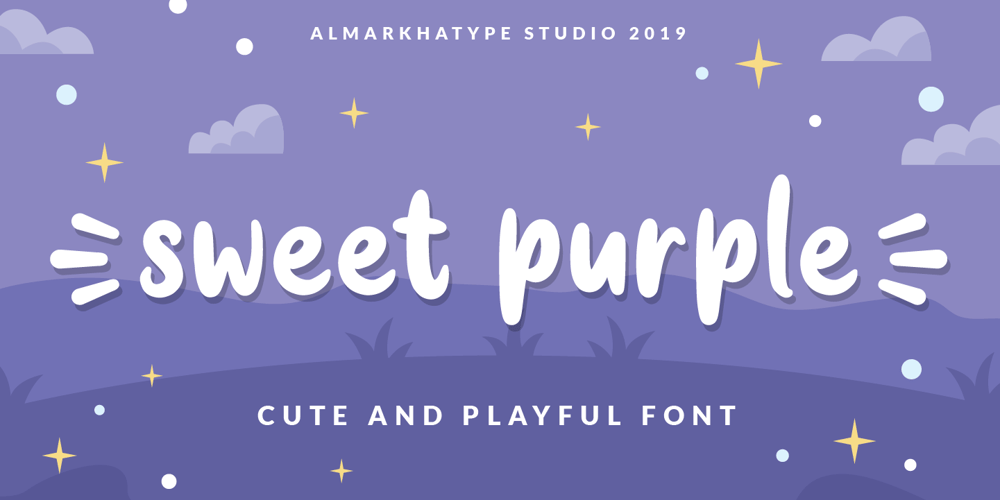
Sweet Purple
Sweet Purple font
Sweet Purple Font Family was designed by Abdul Malik Wisnu and published by Almarkha Type. Sweet Purple contains 1 styles and family package options. Sweet Purple – fun font that will make your design looks modern, unique and fun.Perfect for labels, quotes, posters, DIY projects, branding, packaging, greeting cards, websites, photography, signs, window art, scrap booking, tags and so much more!Thank You